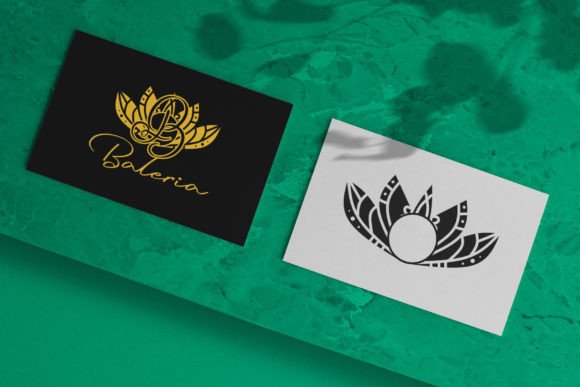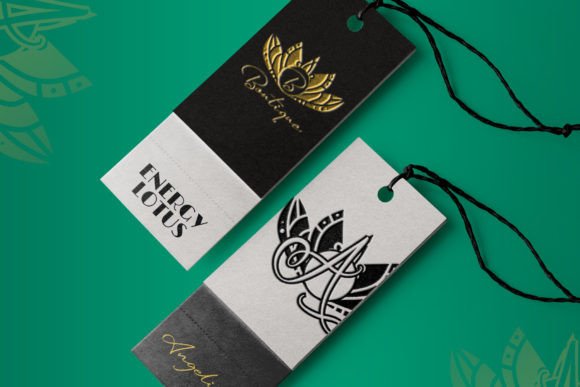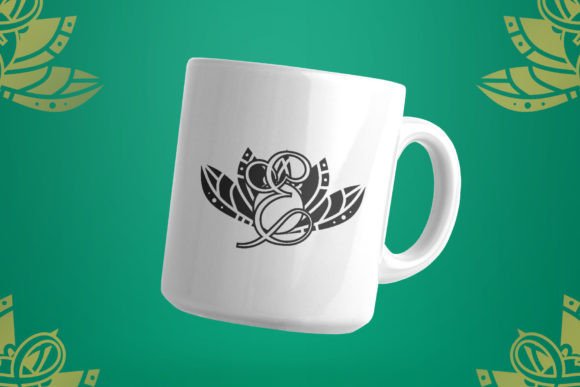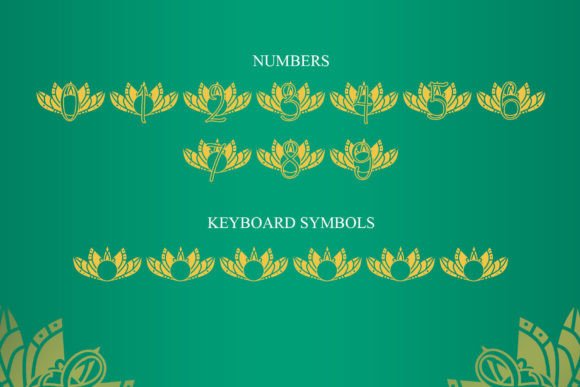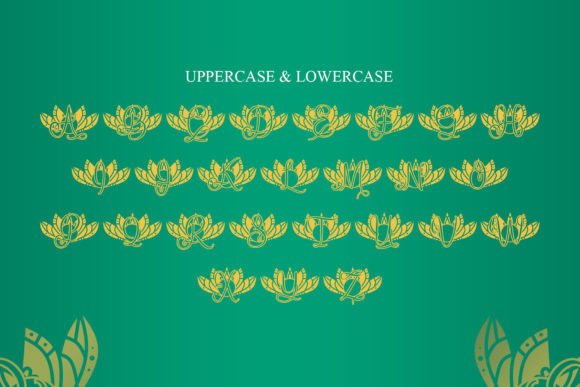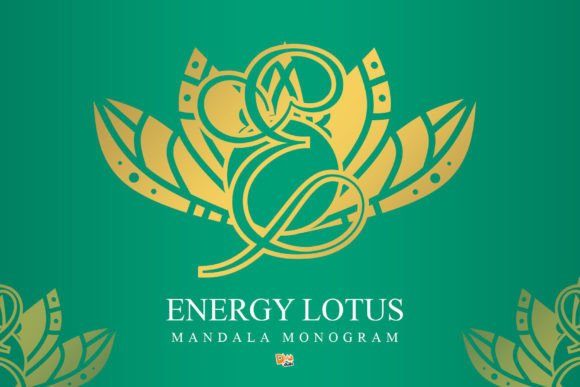
Introducing the Energy Lotus Mandala Monogram Font: Elevate Your Designs with Elegance
Are you a designer, crafter, or artist looking for a unique and elegant font to elevate your work? Look no further than the Energy Lotus Mandala Monogram Font. This stunning decorative font is inspired by the intricate beauty of mandala art, making it perfect for a wide range of creative projects.
What is the Energy Lotus Mandala Monogram Font?
The Energy Lotus Mandala Monogram Font is a carefully crafted font that combines the serenity of lotus flowers with the spiritual significance of mandalas. Each letter is designed to resemble a miniature mandala, with delicate lines, curves, and patterns that evoke a sense of calm and sophistication.
Key Features of the Energy Lotus Mandala Monogram Font
- Elegant and Unique Design: The Energy Lotus Mandala Monogram Font boasts an exclusive design that will set your work apart from the rest. Its intricate patterns and curves make it perfect for creating stunning logos, monograms, and decorative elements.
- Inspired by Mandala Art: Mandalas have long been a symbol of spiritual growth, balance, and harmony. This font captures the essence of mandala art, infusing your designs with a sense of calm and serenity.
- Versatile and Adaptable: The Energy Lotus Mandala Monogram Font can be used for a wide range of projects, including logos, branding, packaging, crafts, and more.
Use Cases for the Energy Lotus Mandala Monogram Font
The Energy Lotus Mandala Monogram Font is perfect for a variety of creative projects, including:
- Logo Design: Create a stunning logo for your business or brand that exudes elegance and sophistication.
- Crafting and Scrapbooking: Add a touch of elegance to your crafts, scrapbooking pages, and journal entries.
- Branding and Packaging: Elevate your brand’s visual identity with a unique and memorable font.
- Stationery and Invitations: Create beautiful stationery, invitations, and greeting cards that showcase your personal style.
Tips for Using the Energy Lotus Mandala Monogram Font
To get the most out of the Energy Lotus Mandala Monogram Font, consider the following tips:
- Experiment with Colors: The Energy Lotus Mandala Monogram Font looks stunning in a variety of colors, from bold and bright to soft and pastel.
- Mix and Match: Combine the font with other design elements, such as patterns, textures, and images, to create a unique look.
- Play with Sizes: Use the font in different sizes to create visual interest and hierarchy in your designs.
The Energy Lotus Mandala Monogram Font is a beautiful and versatile font that can elevate your designs to the next level. With its elegant and unique design, inspired by the serenity of mandala art, this font is perfect for designers, crafters, and artists looking to add a touch of sophistication to their work. Try it today and discover the endless possibilities!